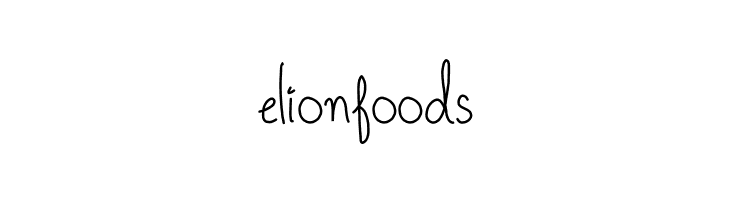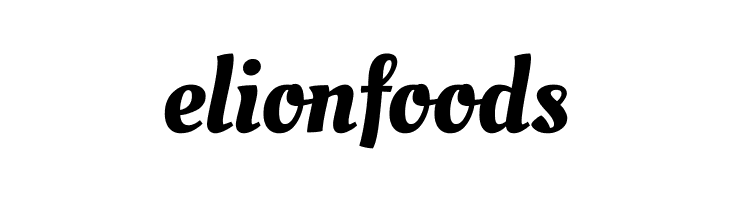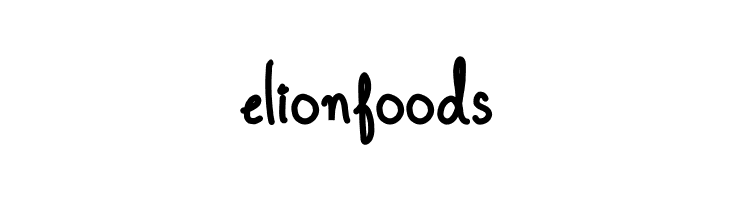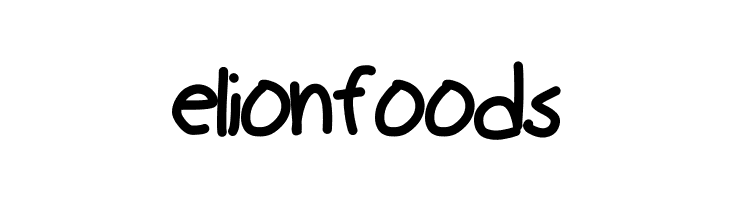
A playful, informal handwritten font with rounded, consistent strokes.
A playful, handwritten-style font with rounded, irregular strokes.
A playful, hand-drawn font with a cartoonish, nostalgic style.
A bold, flowing script font with a lively and dynamic character.
A bold, flowing script font with smooth, rounded edges and dynamic curves.
A bold, flowing script font with elegant swash caps and dynamic curves.
A bold, swashy script font with playful and energetic curves.
A whimsical handwritten font with tall, narrow letterforms and playful strokes.